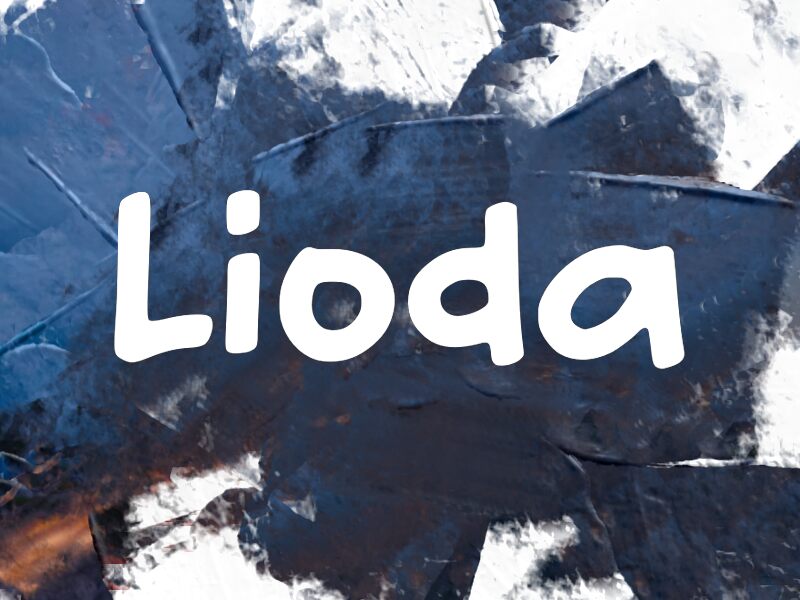
Lioda
Lioda font by wep is a free cartoon display typeface with a bouncy, hand-drawn energy that feels like it’s been brushed onto the page. Its chunky, rounded shapes and slightly uneven rhythm give it a friendly wobble, as if every letter is mid-laugh. The solid black forms read clearly even at smaller sizes, while still keeping that soft, squishy, kid-safe vibe that pulls young eyes in.
Using Lioda, you can bring warmth and playfulness to kids’ book covers, classroom posters, birthday invitations, toy packaging, app interfaces, and cheerful logo marks. This free font shines when you let it go big in headlines and titles; pair it with a clean, simple sans serif for body copy to keep things easy to read while Lioda handles all the fun.